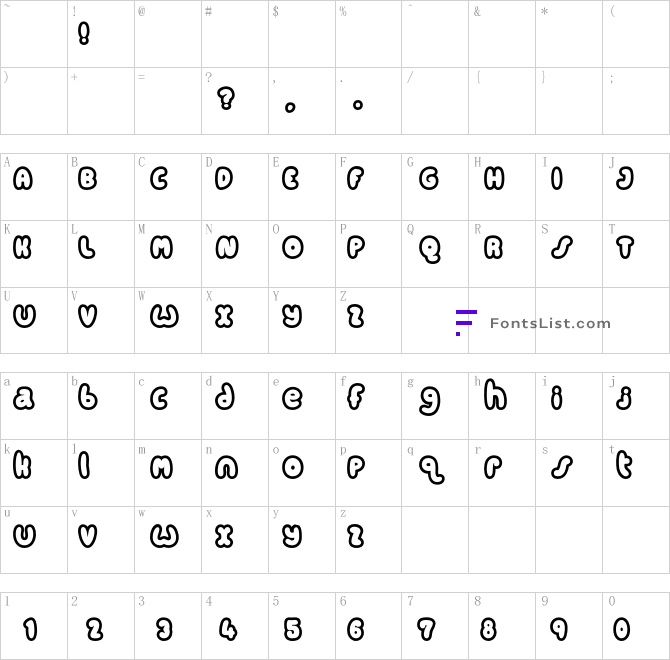
- Font Name:Candy coloured clown
Candycolouredclown.otf is a very beautiful artistic font, Candycolouredclown.otf is widely used in the design and printing of various books and pictures,Candycolouredclown.otf has a strong visual impact,Candycolouredclown.otf is a commonly used font in newspapers, magazines and books, and is used in posters, e-commerce Poster design, store design, logo design, font design and other fields.Candycolouredclown.